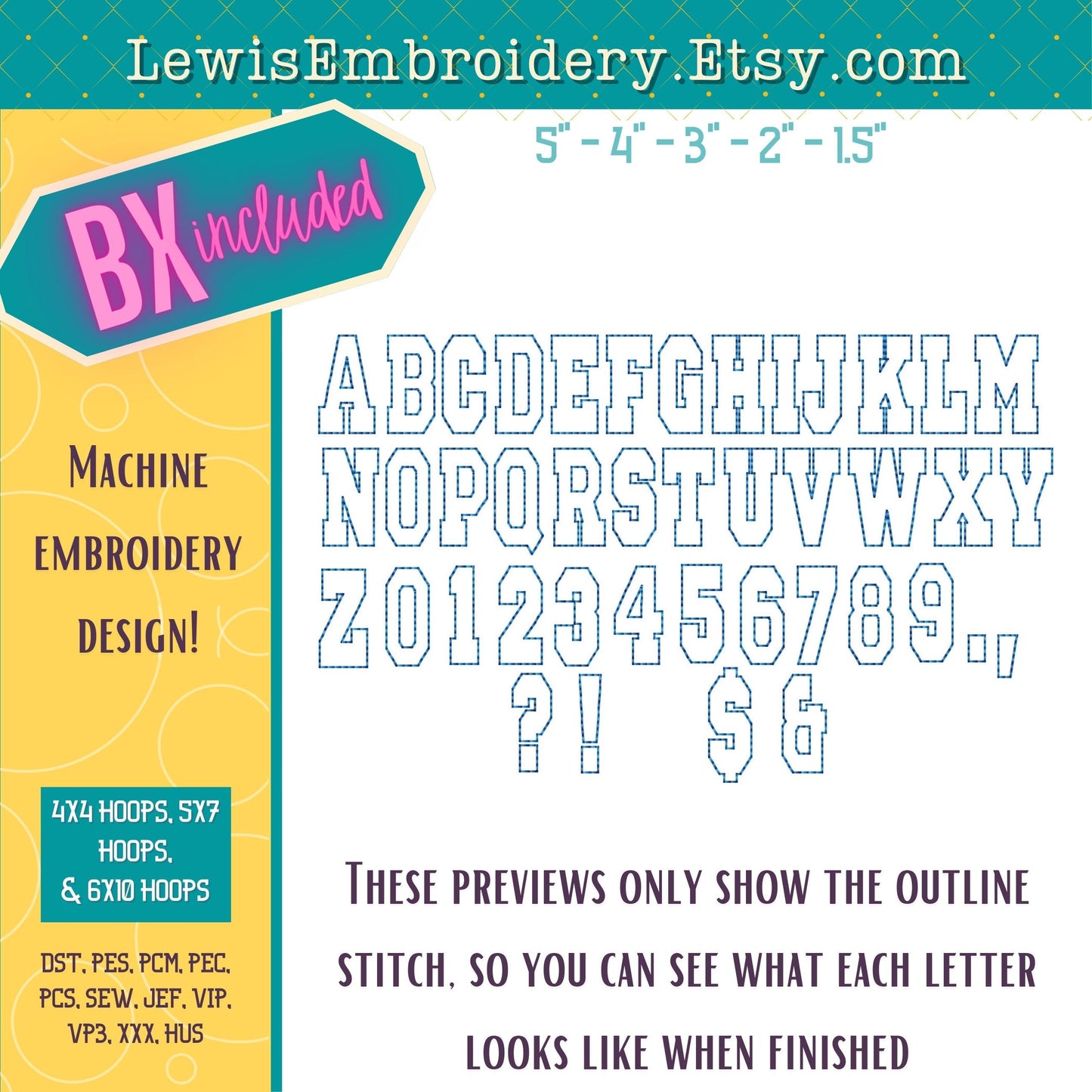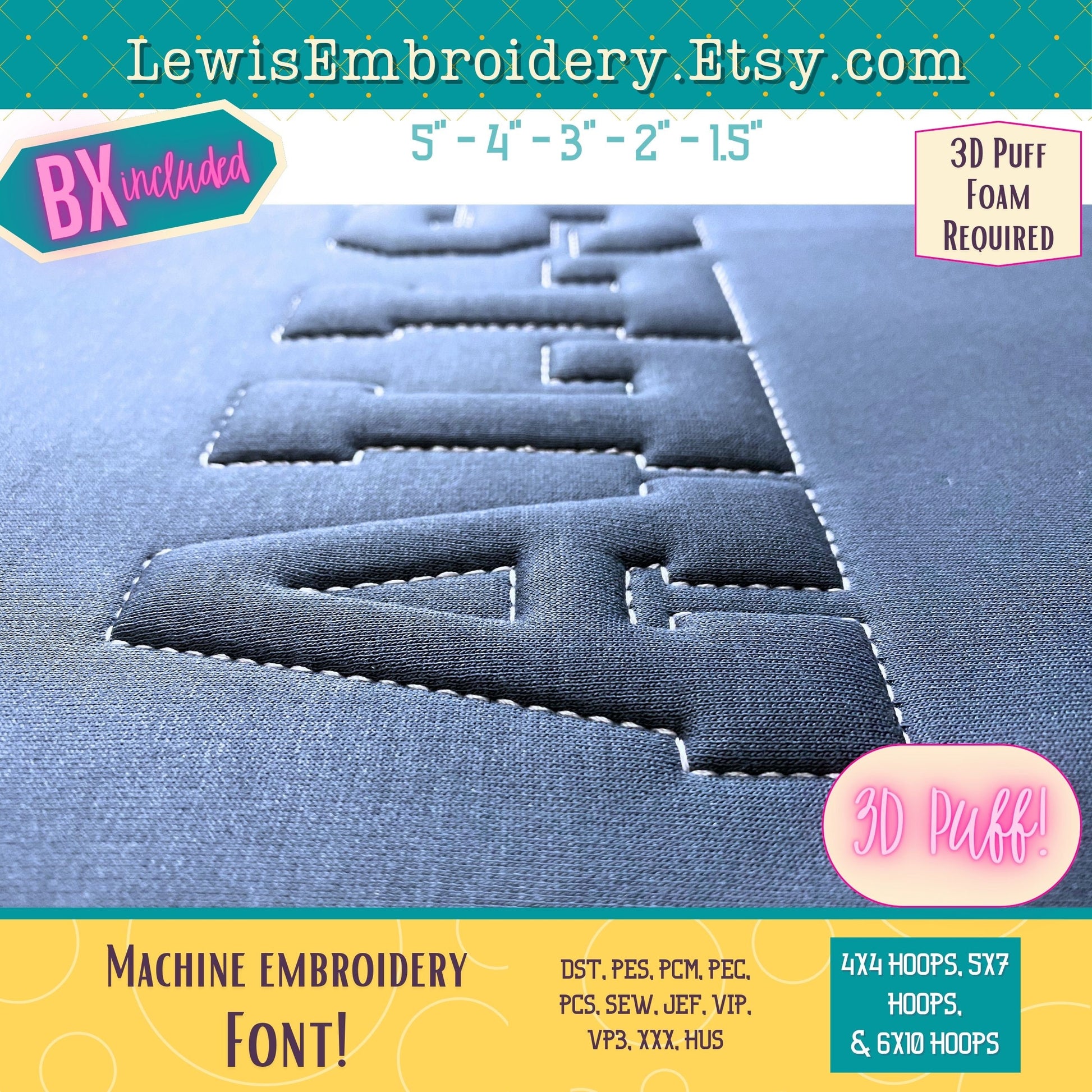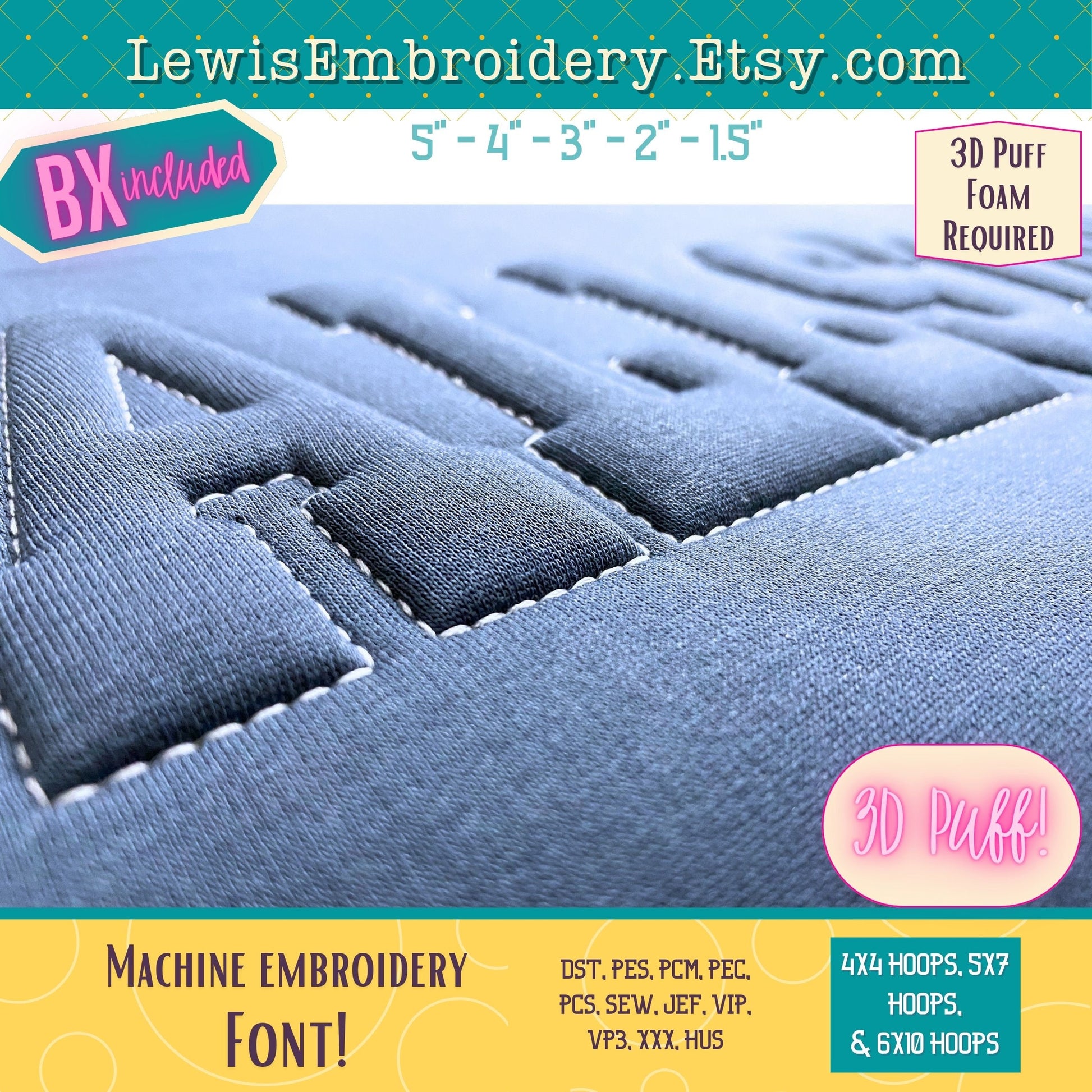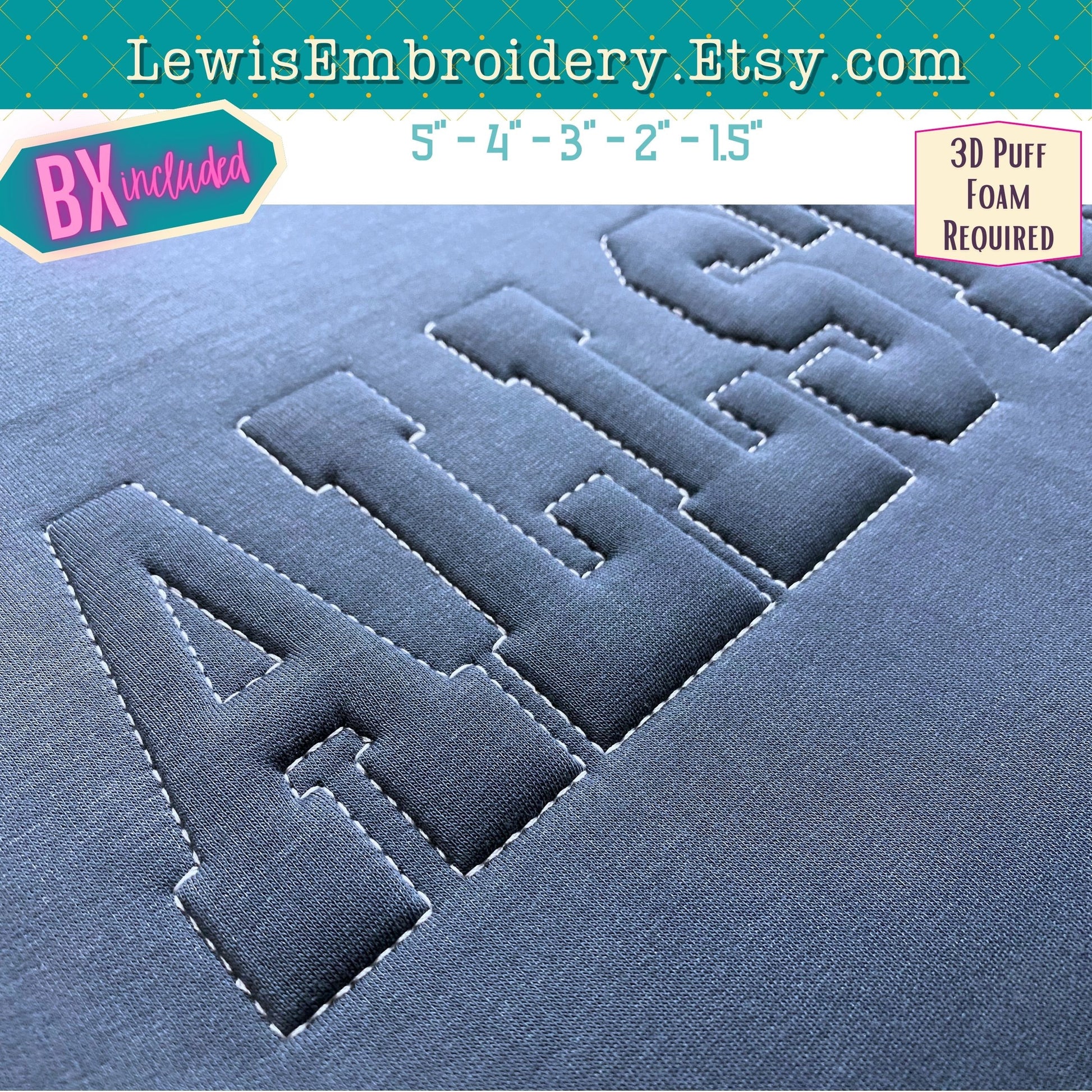
Embossed 3D Puff, Varsity, Machine Embroidery Font - With BX - (PDF Tutorial Included)
Embossed 3D Puff Embroidery Font - Puff Foam Embroidery Font - Puffy Outline Font - Varisty Embroidery Font - Sports Block Font - BX Font
This font was designed to be used with a weighted stretchy fabric, such as sweatshirt material. The quality of the outcome cannot be guaranteed if you use very lightweght fabric, or fabric with no stretch.